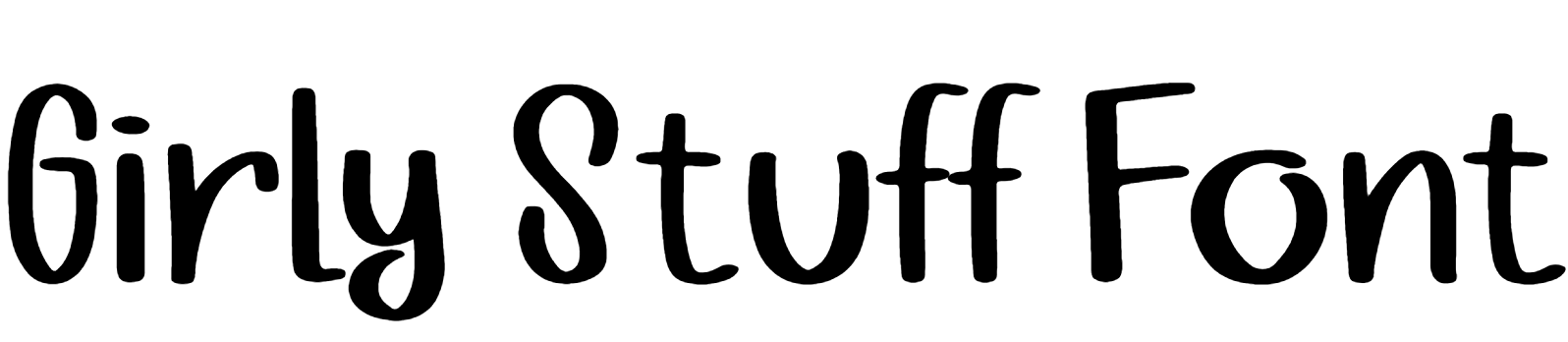
Girly Stuff
Girly Stuff is a handwritten font made by Fajar Wicaksono (2020). It has a casual, written-with-a-pen look that makes designs feel personal. It's a free download, and you can try it with your own text in the preview above first.
- Designer: Fajar Wicaksono
What You Can Type With Girly Stuff
With complete upper and lowercase letters and all ten digits, Girly Stuff is ready for real wording, not just a single headline. Common punctuation such as &, !, ? and @ is included as well. It also has the accented letters you need for Spanish, French, Portuguese and Italian.
Where Girly Stuff Works Best
Think of Girly Stuff for greeting cards, journal pages and friendly social posts. Set it a bit larger than you would a normal text font. Handwriting styles lose their charm once they get too small to read comfortably.
Who designed Girly Stuff font?
Girly Stuff was designed by Fajar Wicaksono. The copyright line inside the font is dated 2020.
Does Girly Stuff support accented letters?
Yes. Girly Stuff includes the accented letters needed for Spanish, French, Portuguese and Italian, so it works for more than just English.